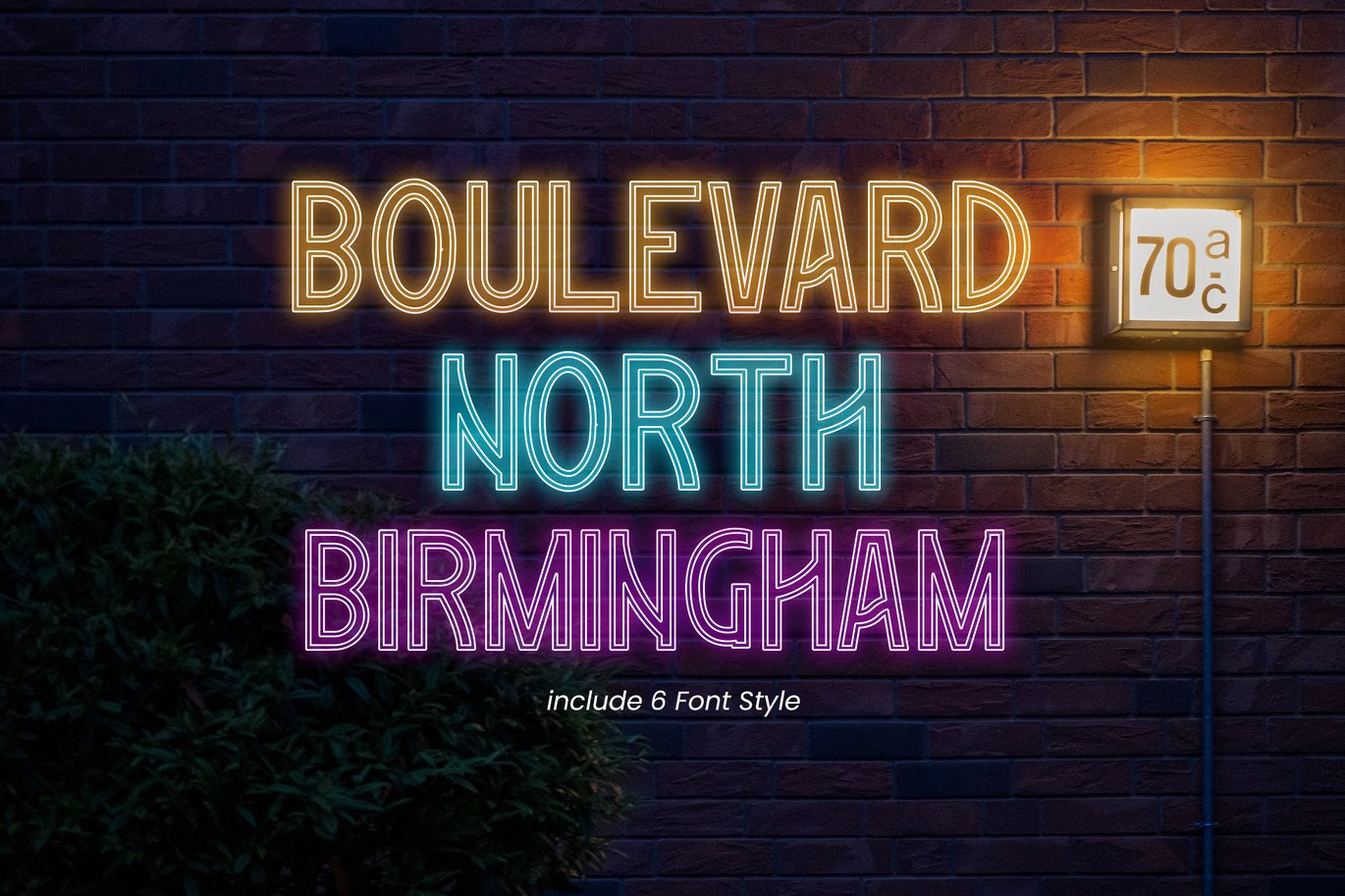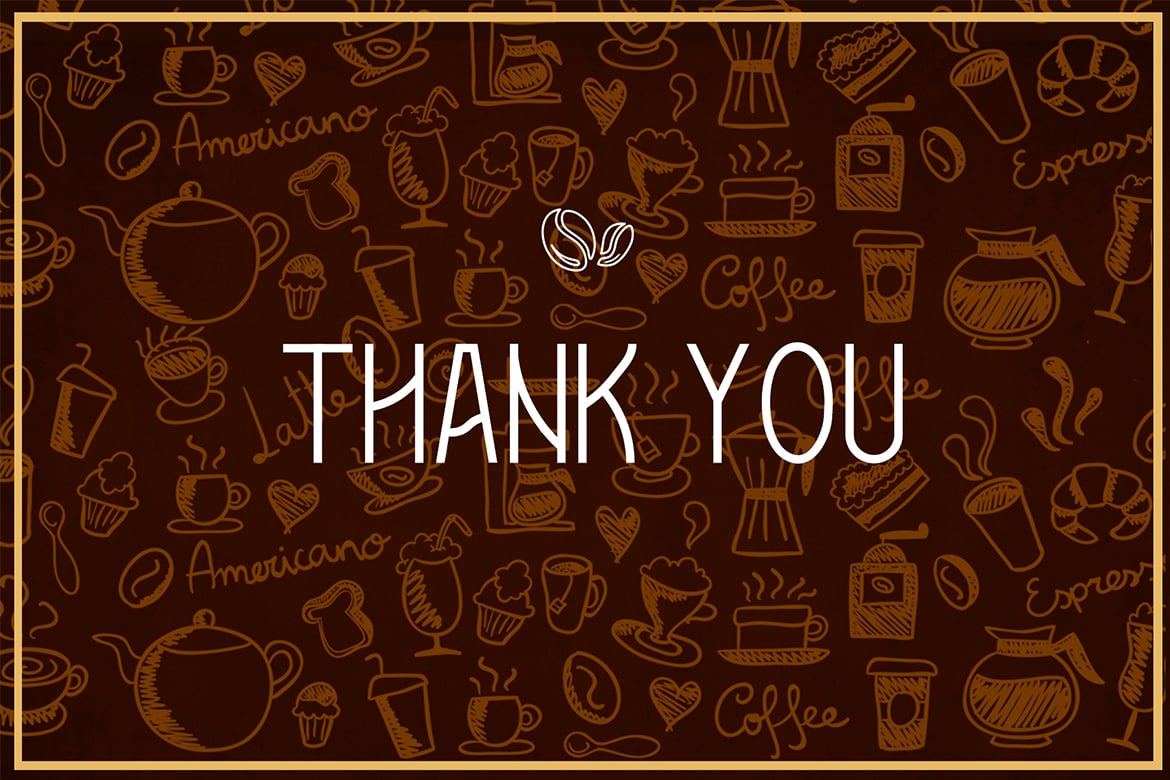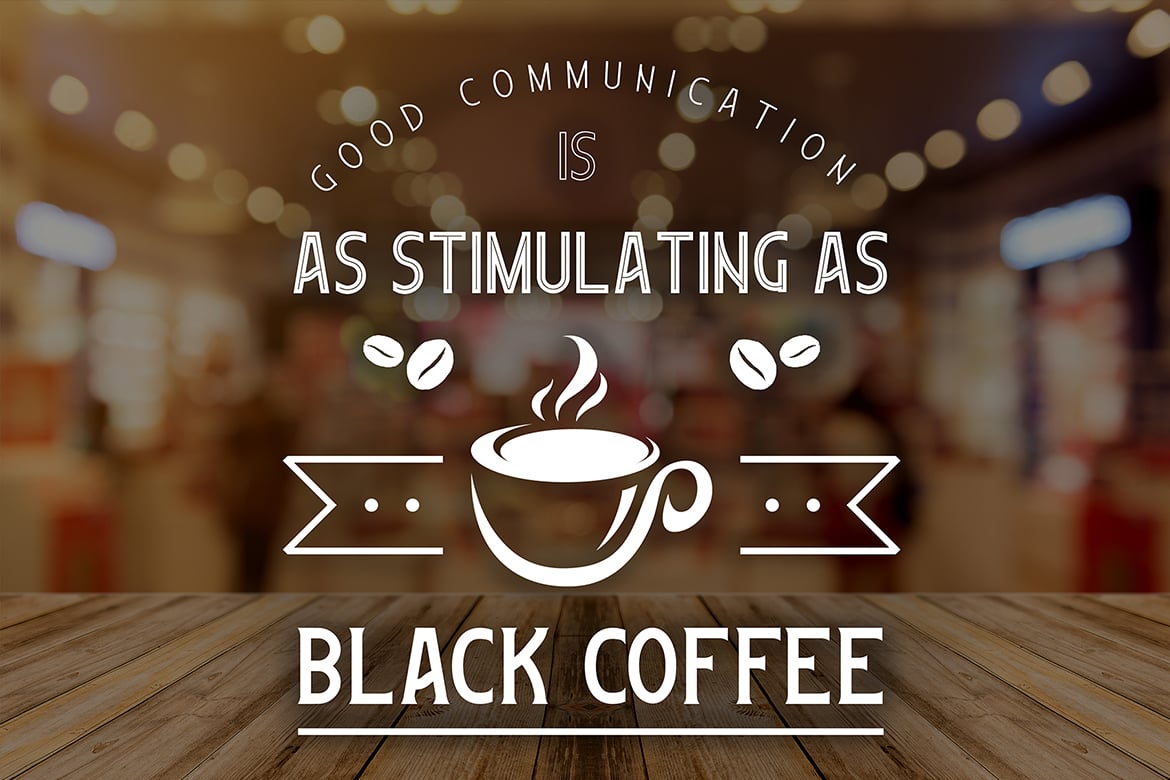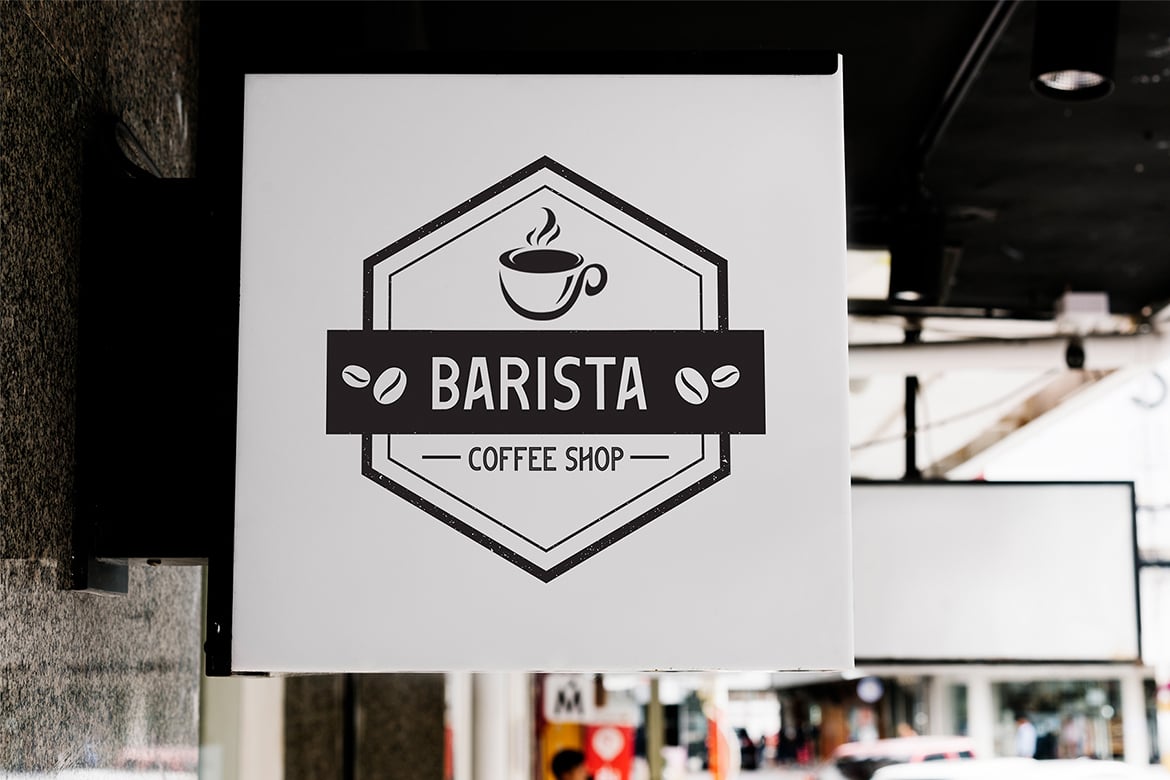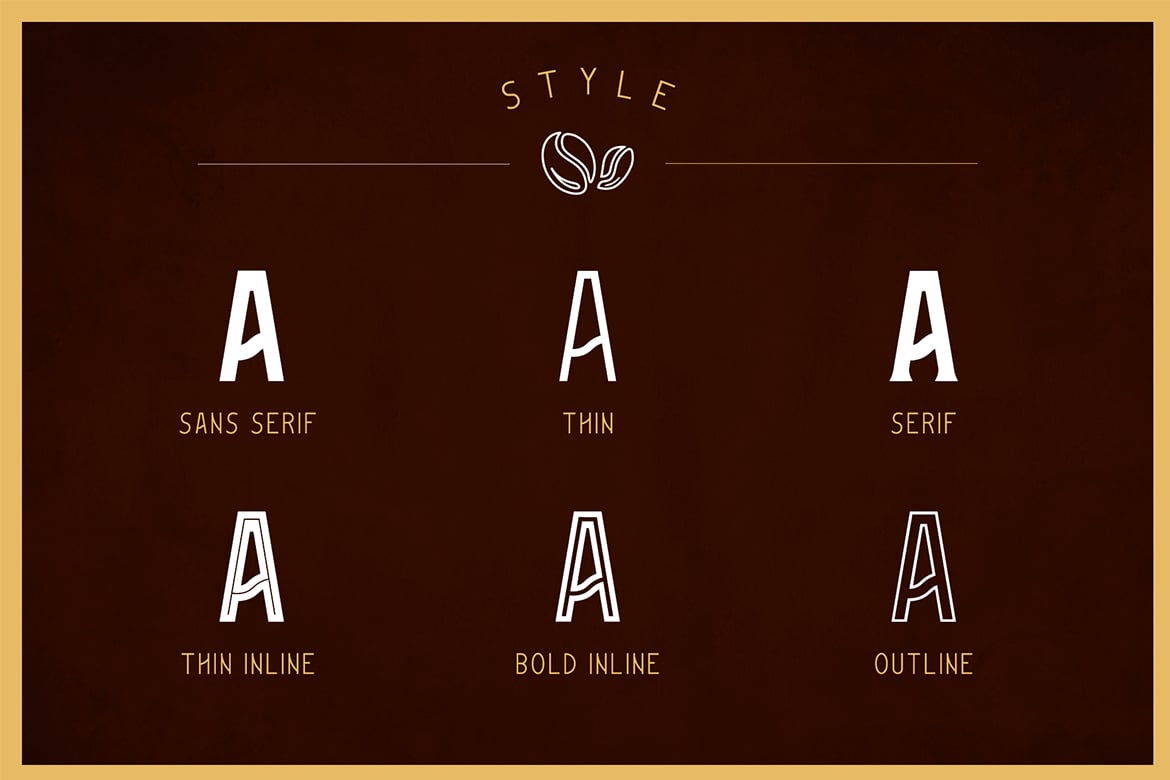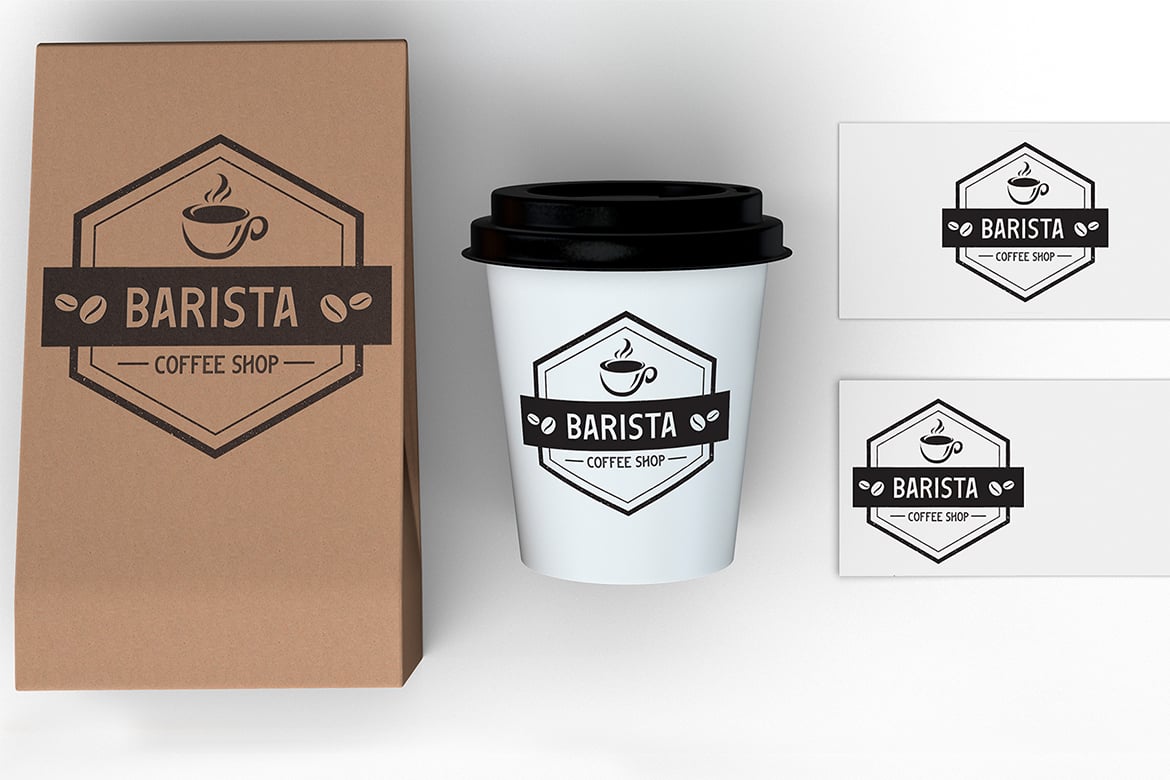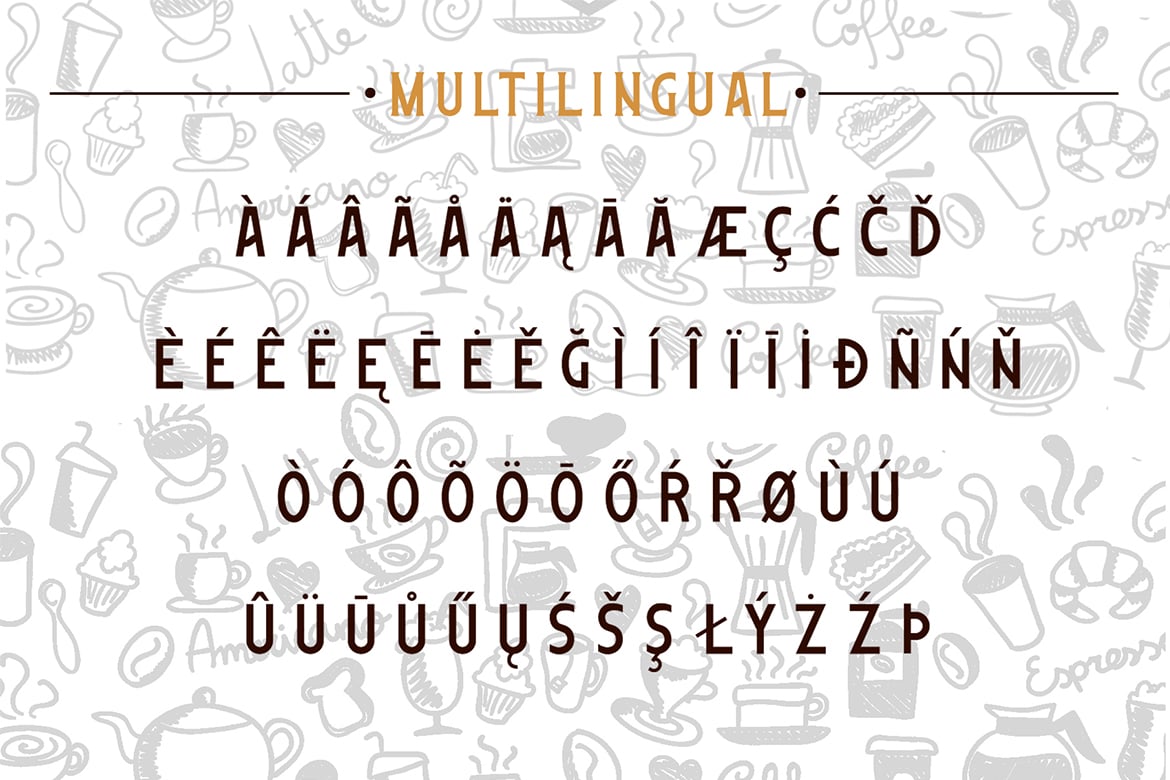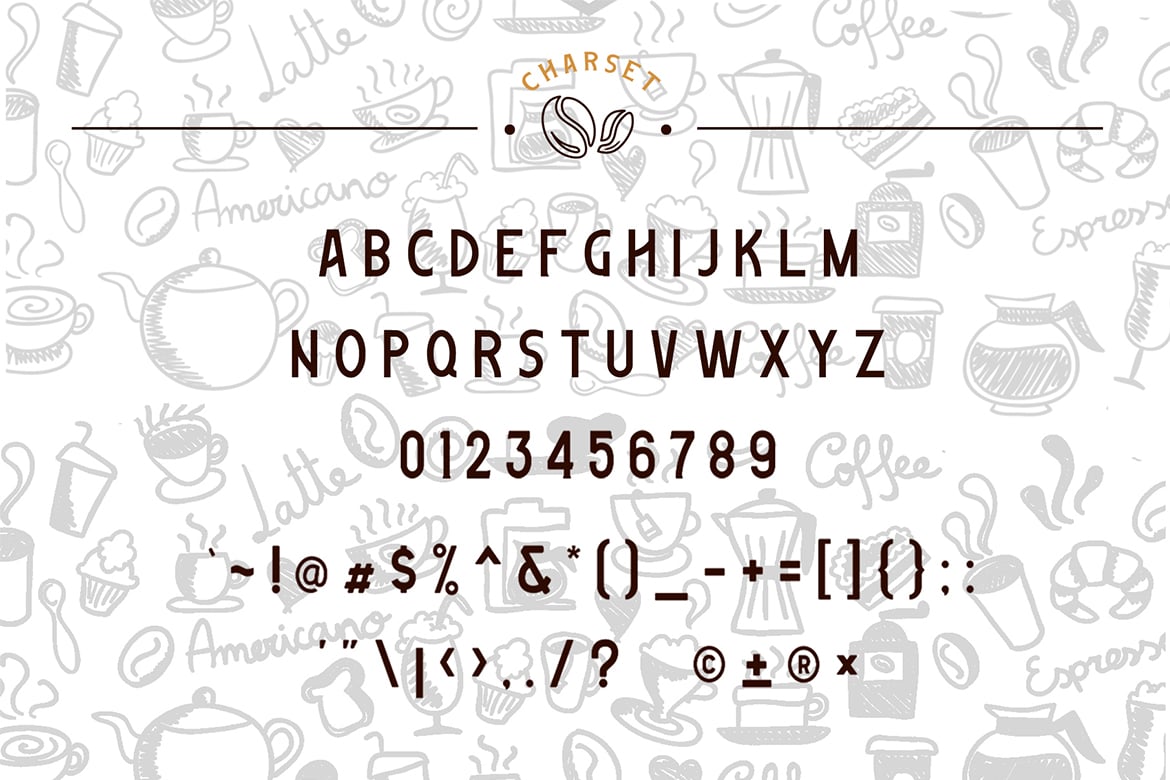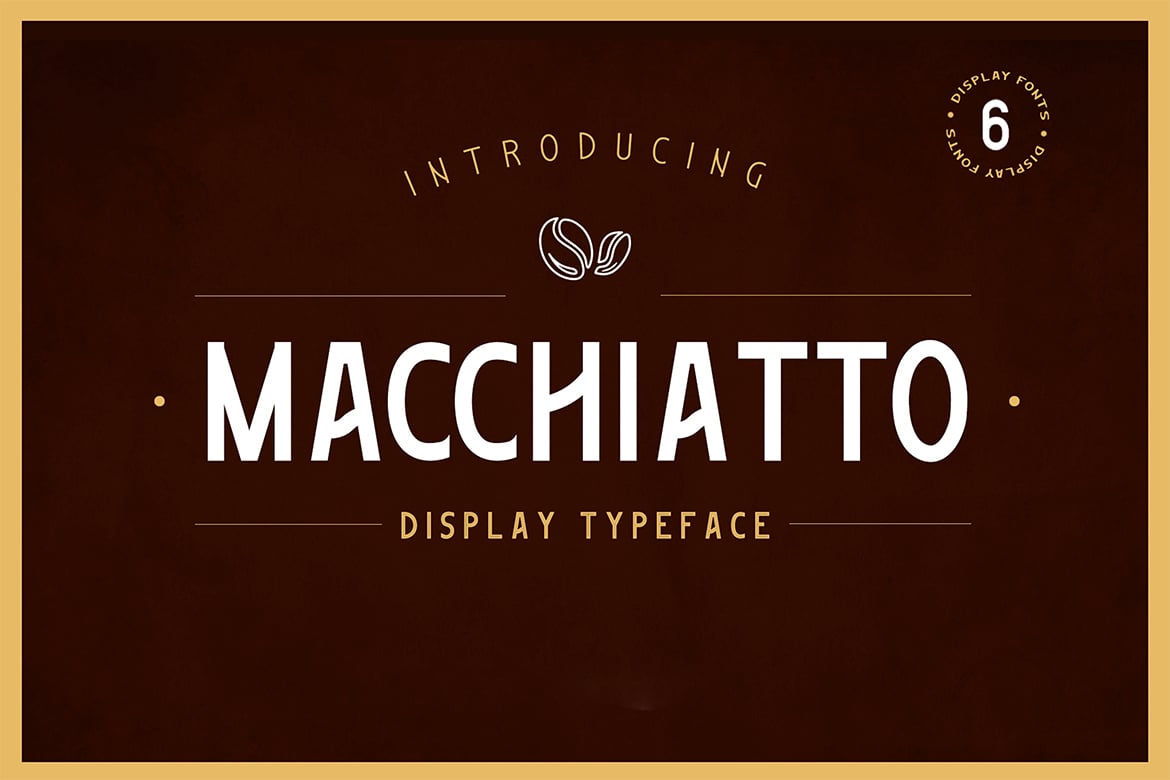
Macchiato – Display Font + Neon Effect
Macchiato Font is a Display Font, this style gives a feel of vintage, classic, old, and handmade. Suitable for any graphic designs such as branding materials, t-shirt, print, business cards, logo, poster, t-shirt, photography, quotes, coffe shop.et
With 6 Style Font
CHARACTER DETAILS
- Uppercase alphabet A-Z
- Numbers 0-9
- Multilingual Provided